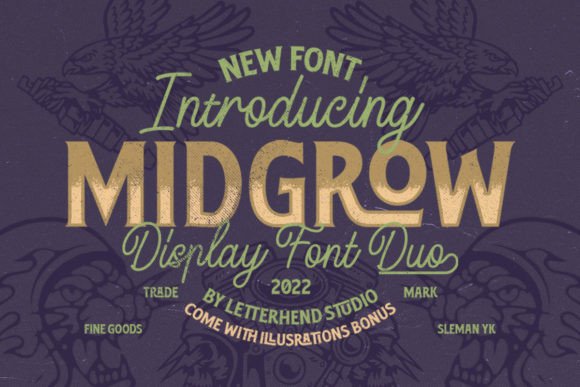
Welcome to the realm of visual intrigue, where Midgrow Duo Font reigns supreme. A creation of the ingenious mind of letterhend, this display font duo possesses an allure like no other. Witness the harmonious blend of classic elegance and contemporary flair, an artistic masterpiece that leaves you breathless.
With its refined curves and clean lines, Midgrow Duo Font exudes a sense of sophistication and class. Each stroke is meticulously crafted, a testament to the dedication and passion of its creator. This font duo is a symphony of visual delight, a captivating dance of letterforms that mesmerizes the eye and ignites the imagination.
Step into a world of endless creative possibilities with Midgrow Duo Font. Its bold presence commands attention, making it the perfect choice for logos and branding. Craft a memorable identity for your business, one that radiates professionalism and leaves a lasting impression on your audience.
Journey beyond the traditional and explore the enchanting world of invitations and stationery. Let Midgrow Duo Font grace your wedding designs, transforming your special day into an unforgettable celebration. With its elegant charm, this font duo elevates your invitations to works of art, cherished mementos of your love story.
In the realm of social media, Midgrow Duo Font shines like a beacon of creativity. Its visually striking presence captivates audiences, drawing them into your captivating posts. Unleash your inner artist and create content that resonates with your followers, leaving them inspired and eager for more.
But Midgrow Duo Font's allure extends far beyond mere aesthetics. This font duo possesses a remarkable versatility, adapting seamlessly to a myriad of design projects. Whether you're crafting posters, flyers, or brochures, Midgrow Duo Font ensures your message is conveyed with style and impact.
With its intuitive design, Midgrow Duo Font is a dream to work with. Effortlessly navigate your creative journey, knowing that this font duo is your trusted companion. Its user-friendly nature makes it accessible to designers of all skill levels, empowering you to bring your artistic visions to life.
So, embark on this extraordinary adventure with Midgrow Duo Font. Let your creativity soar as you explore the boundless possibilities that await you. Embrace the beauty, the sophistication, and the versatility of this remarkable font duo. Discover the power of visual storytelling and leave an enduring mark on the world with Midgrow Duo Font.